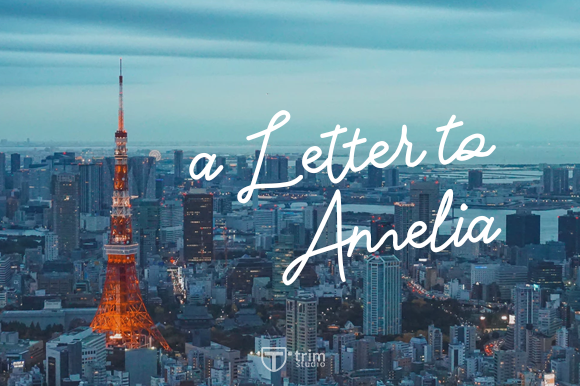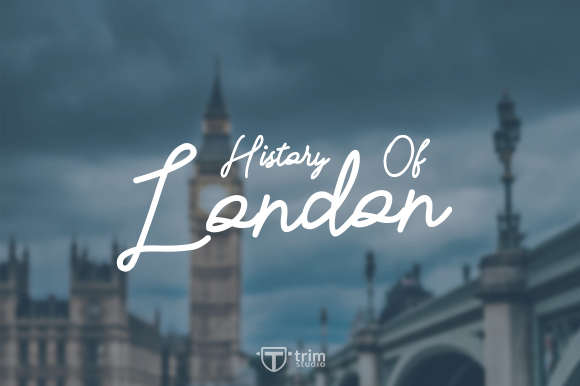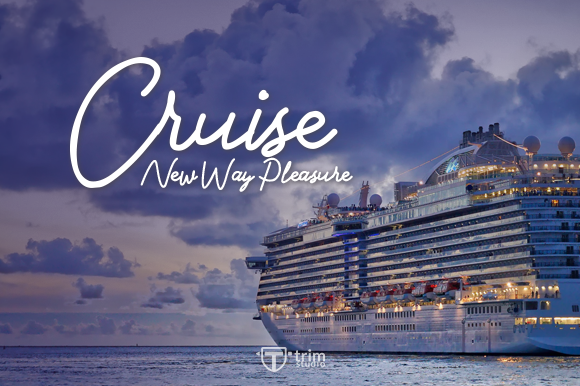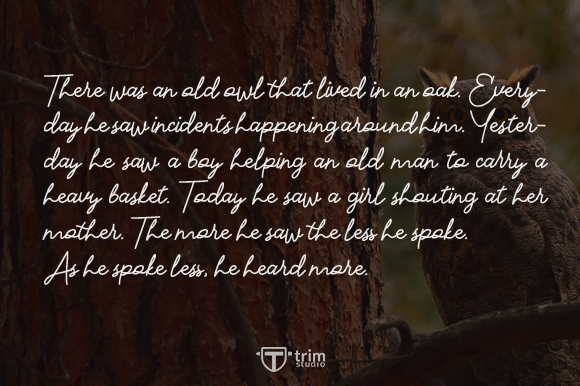
Specialist Font
About Specialist Font
The Specialist is a beautiful signature script. It has a great readability and is perfect for adding a striking, yet elegant look to your designs.
The two included styles are perfect for signatures, branding, wedding invites, business cards, quotes, travel designs, playful events and more!